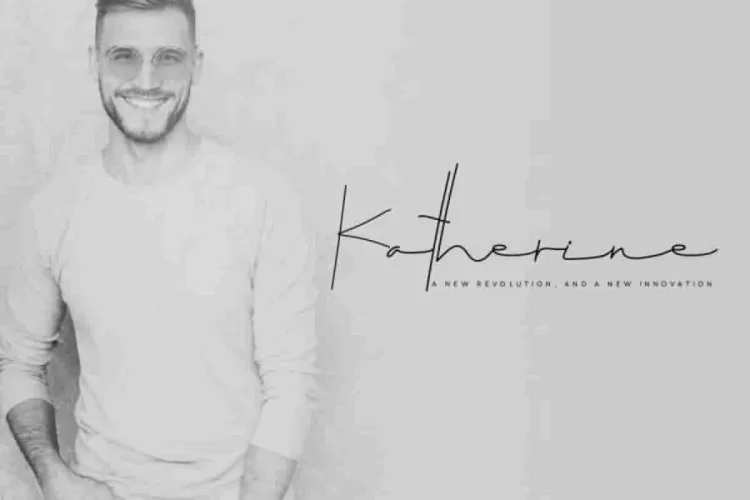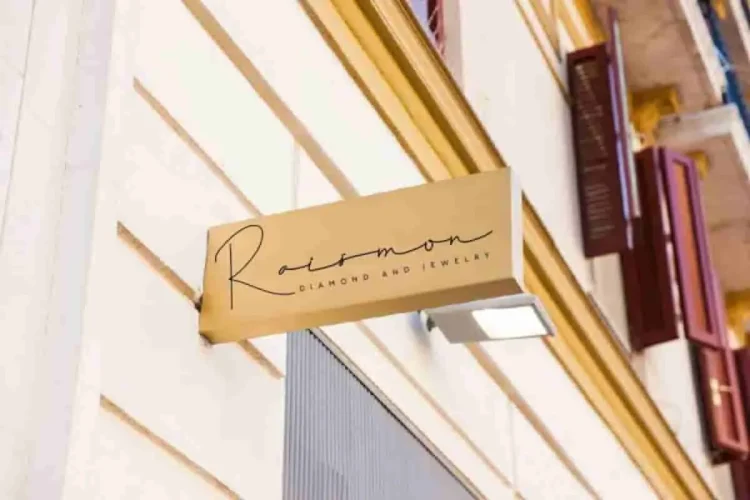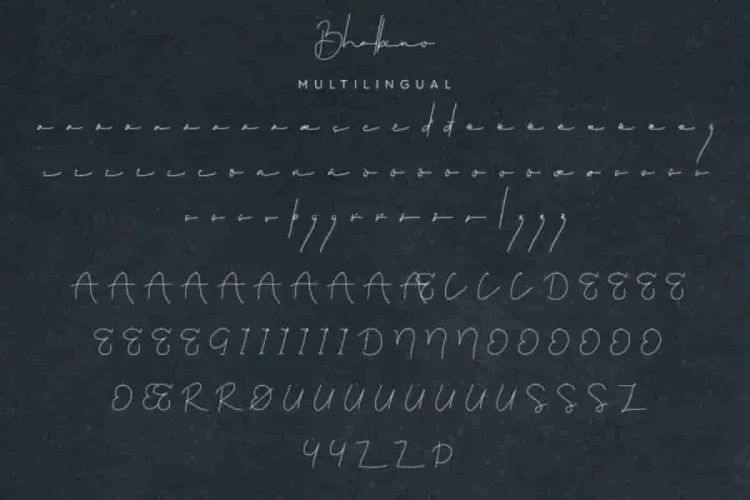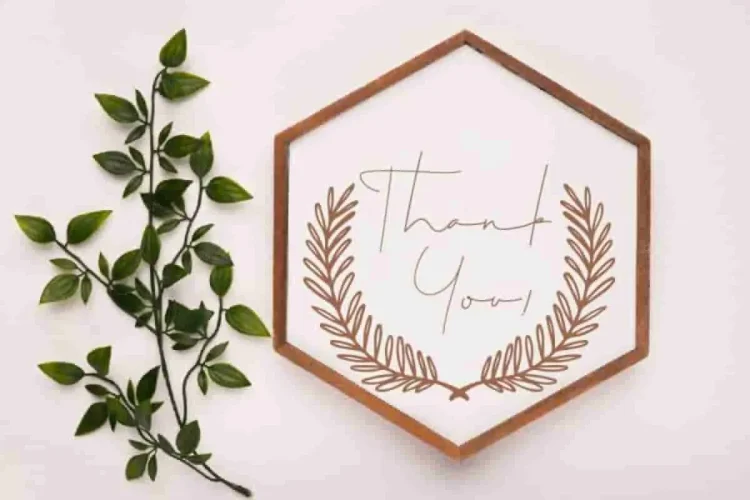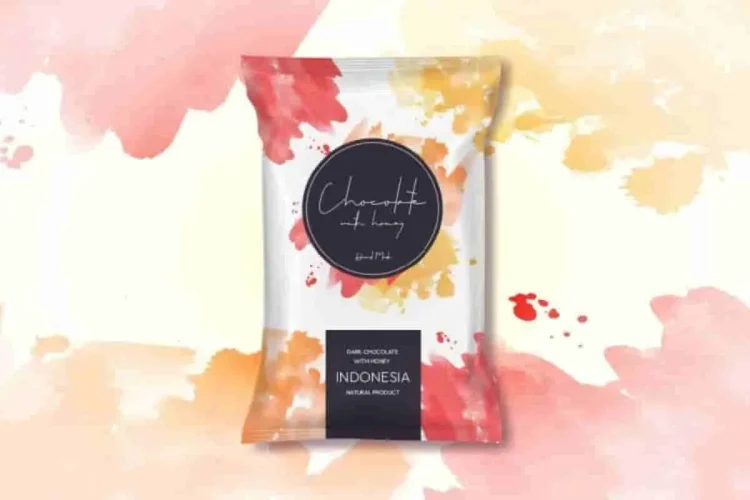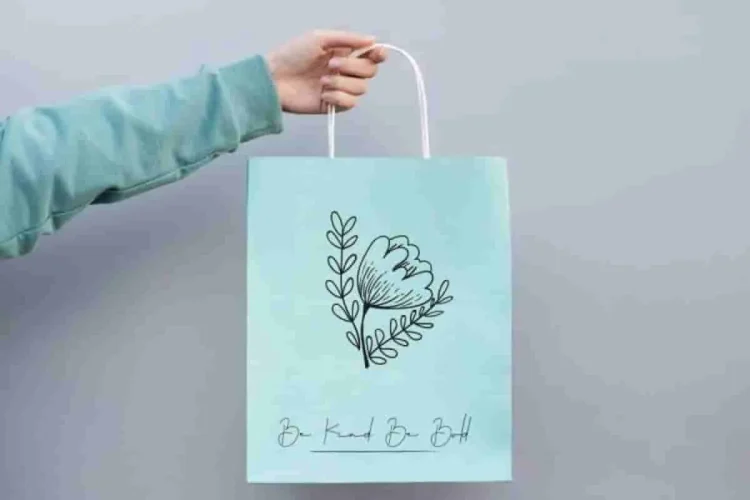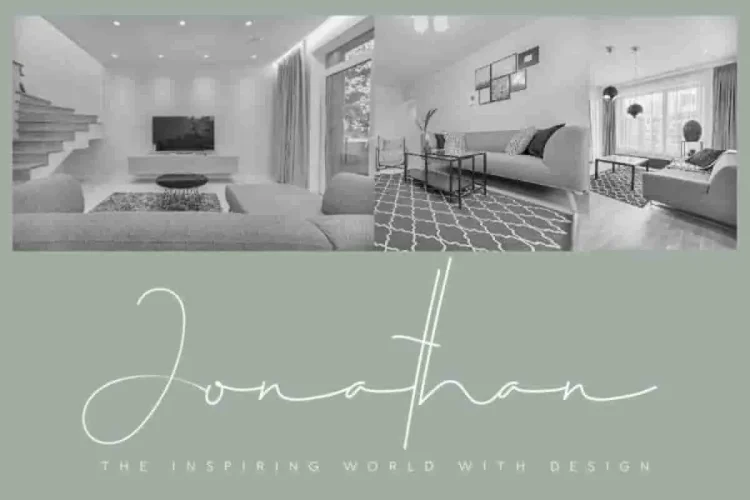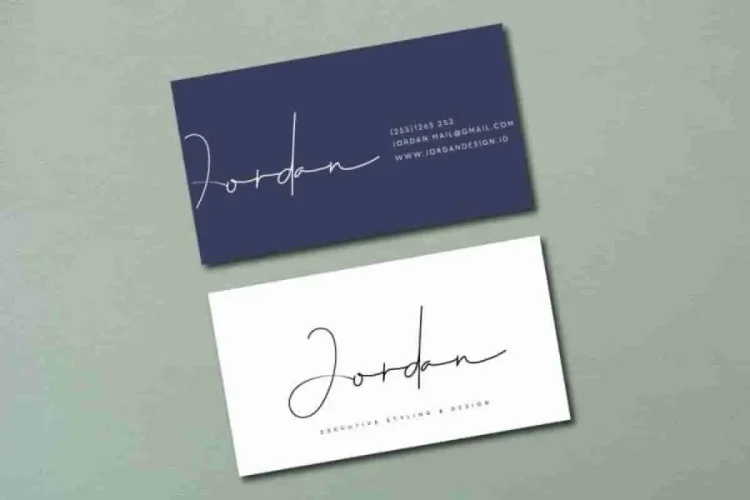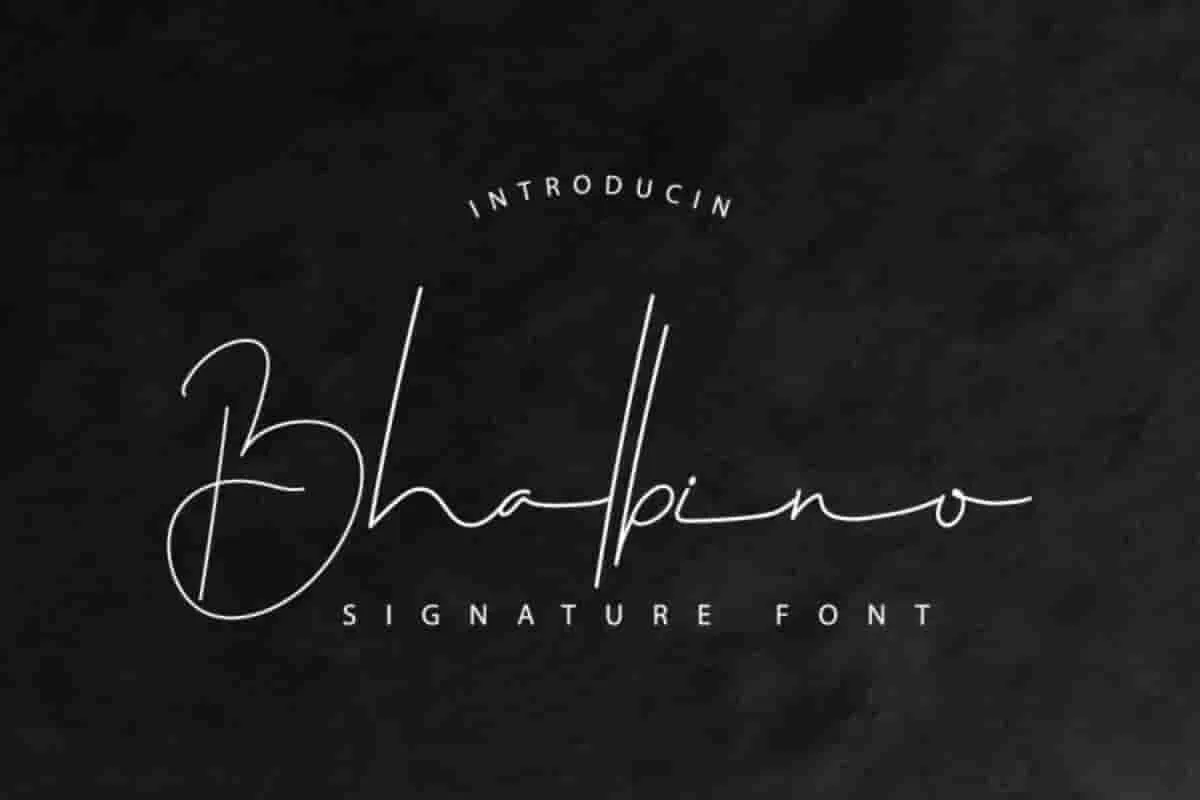
Bhalbino Handwriting Signature Font
Edric Studio in 2020. This time, we proudly introduce the newest font Bhalbino Signature Font!
This is a script font with Handwriting Signature style. Bhalbino Signature Font has an exclusive style, so you can use it on any cases and explore further more. This typeface was handcrafted by two typeface artists : Saila and Suci. Made in Bandung and Garut – West Java, Indonesia.
Specifically, Ayesha Burns will suit for a wide range of projects (need extended license), including : logotype, stationery, business card, signage, flyer, brochure etc. Furthermore, it will be great for names, signature logo, logotype, professionals like : designer, artist, musician, fashion, blogger, chef, architect, florist etc. There’s no borderies of your creativity using this font.